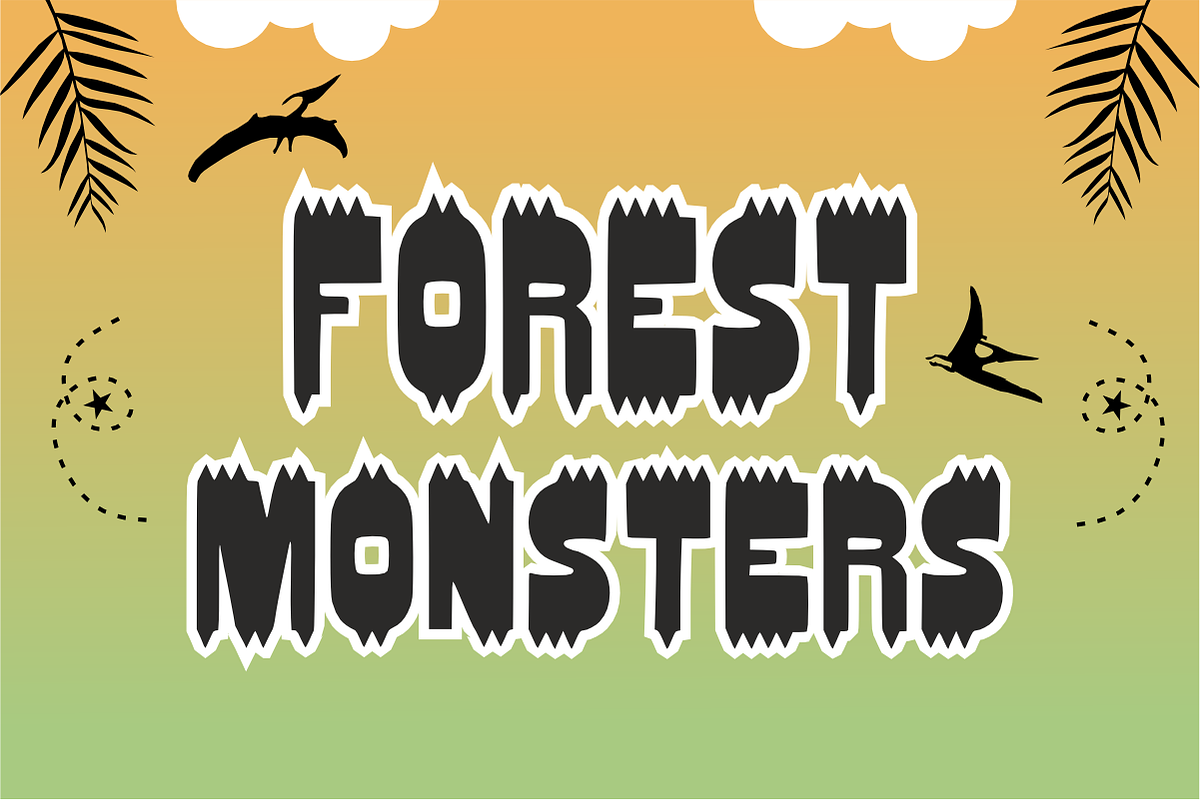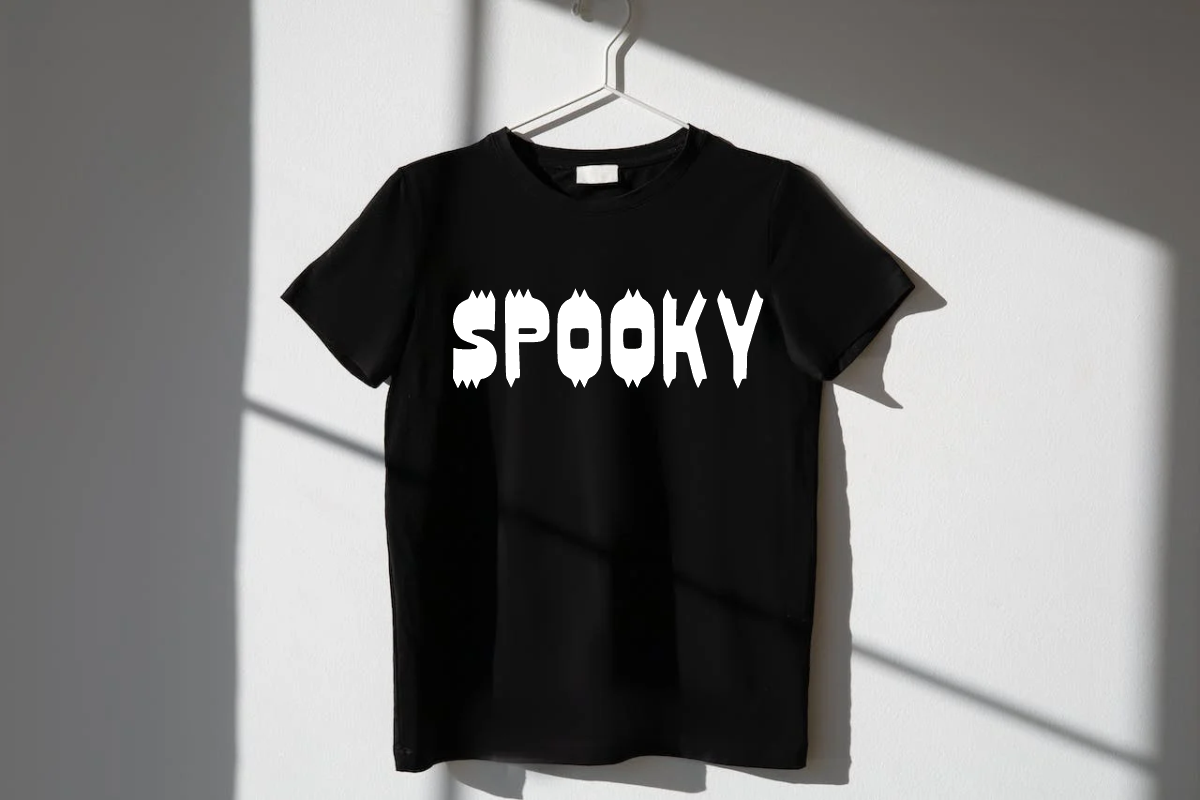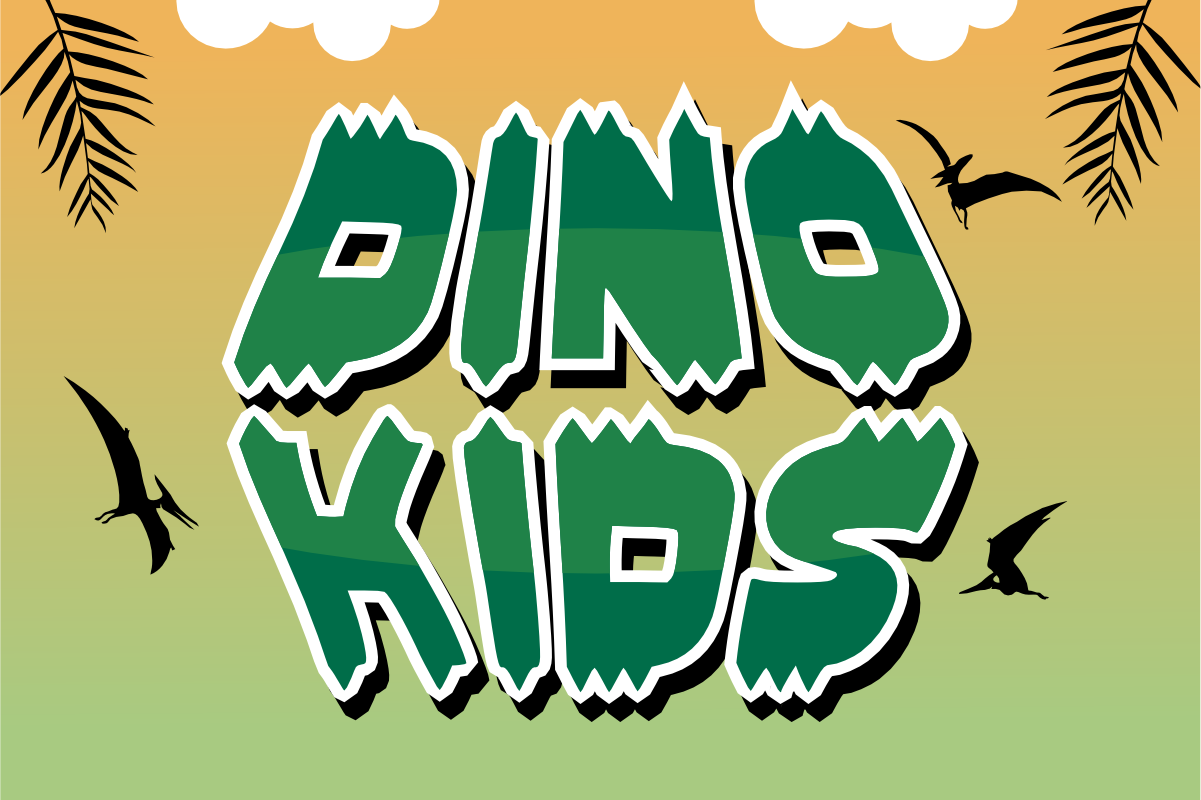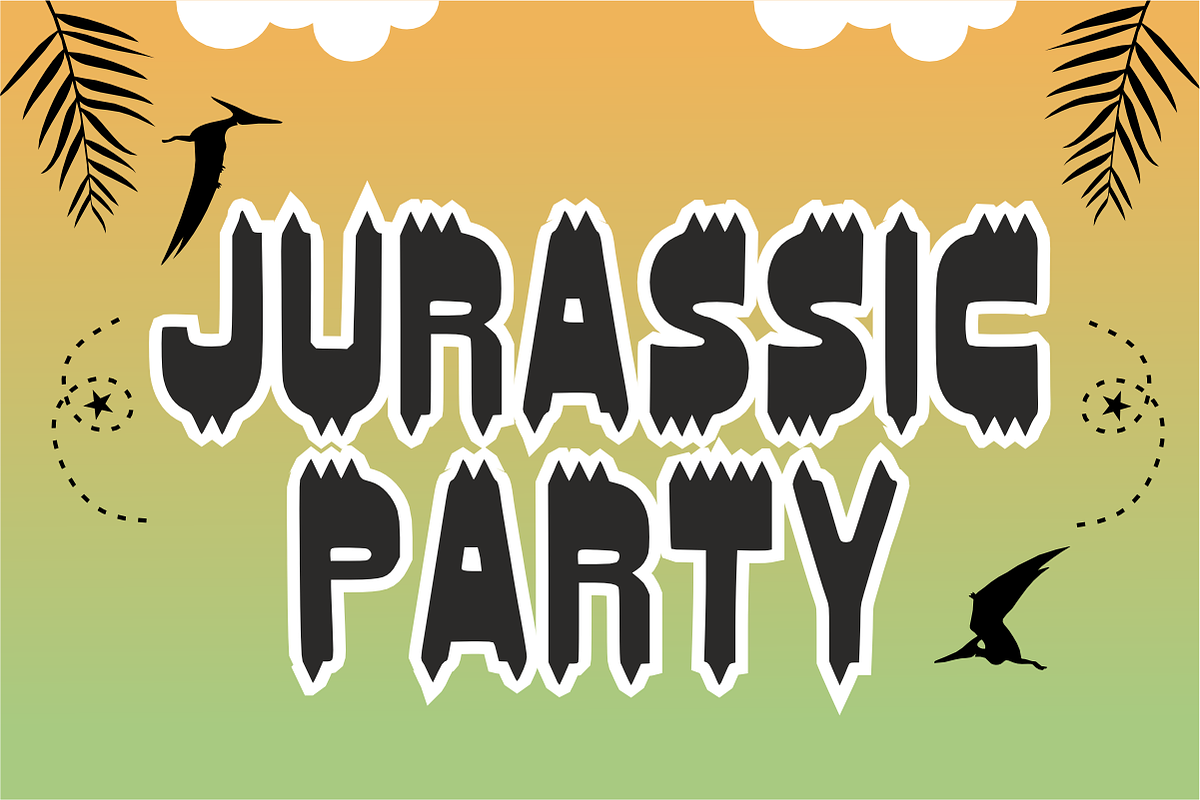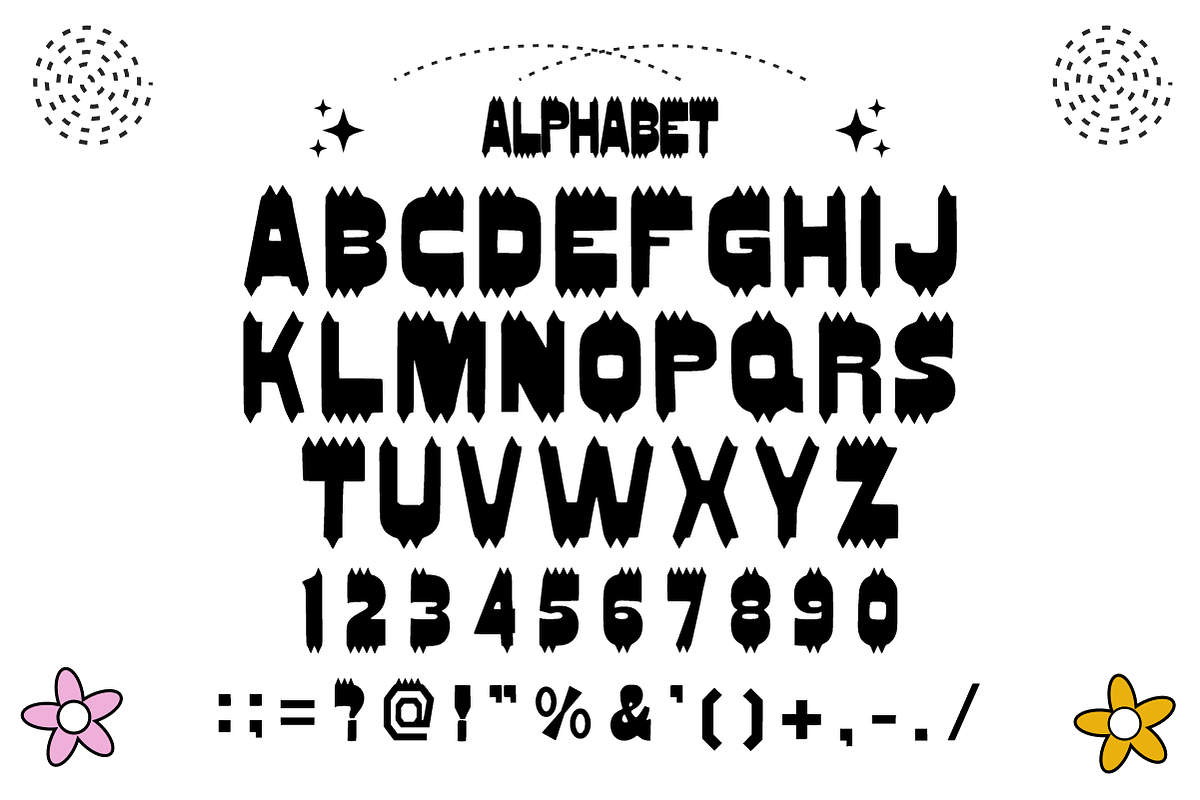
Dino Kids - Playful Dinosaur Font
Dino Kids is a bold, adventurous display font featuring fun jagged edges inspired by prehistoric dinosaur teeth and jungle scales. Packed with wild, energetic charm, this playful font brings instant excitement to kids' party themes and creative crafting projects. Every character is cleanly vectorized to guarantee smooth, effortless cutting on Cricut and Silhouette machines.
Uppercase Character Set
Numbers & Basic Punctuation
Ideal For:
Cricut, Silhouette, and HTV vinyl cutting projects for dinosaur-themed crafts
Etsy sellers creating custom kids' birthday shirts, party banners, and room decor
Print-on-Demand (POD) products, sublimation tees, and school backpacks
Canva template creators making birthday party invitations and social media kits
Teachers Pay Teachers (TpT) authors designing educational worksheets and classroom activity sheets
Custom die-cut sticker packs, planner decals, and digital scrapbooking